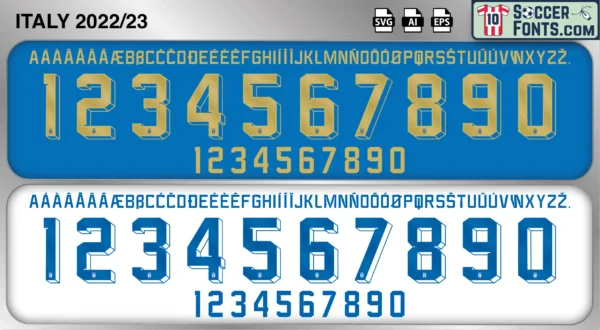
Italy 2022-23 Font
The Italy 2022-23 font is an editable soccer jersey lettering design in vector format inspired by the Italy kit style used during the 2022-23 football seasons. This football font artwork is prepared for football shirt recreations, custom jersey projects, football kit mockups and sports graphic design workflows.
The Italy 2022-23 font became associated with contemporary Italian football aesthetics, iconic blue national team shirts and the continuation of Italy’s historic football identity following the UEFA EURO triumph. Italy football shirts from this period remained especially popular among football shirt collectors and supporters because of their connection with modern tournament football, Italian football culture and the legacy of one of the most successful national teams in football history. The 2022-23 era also reflected Italy’s ongoing transition toward a younger squad preparing for the next generation of international competitions.